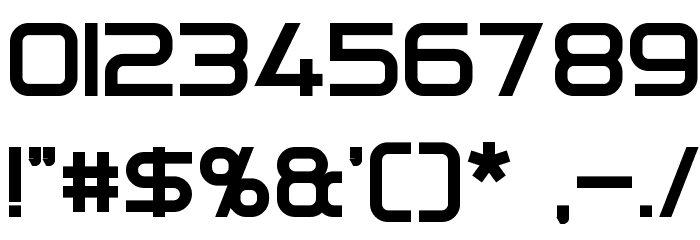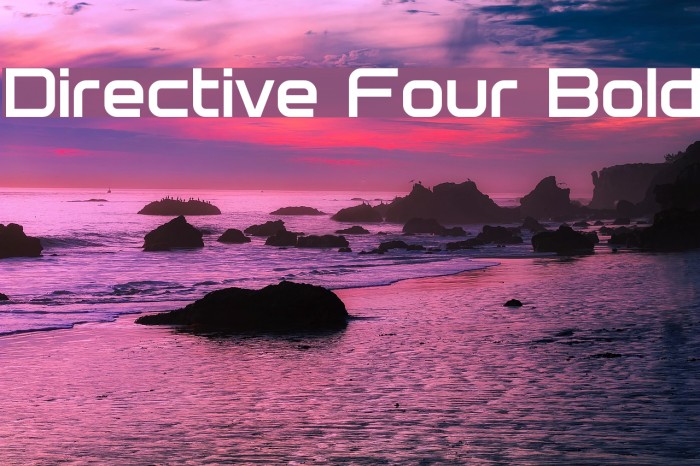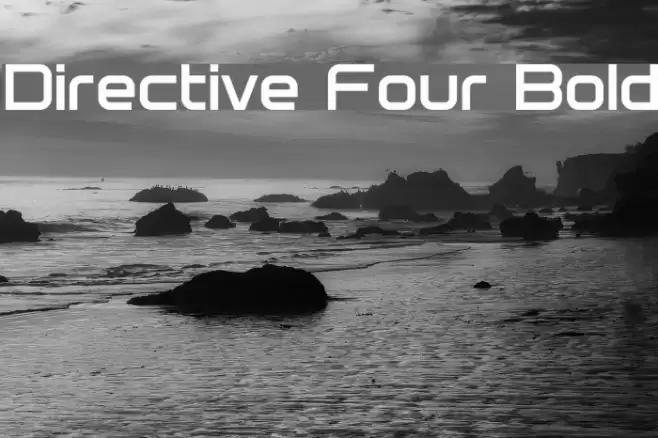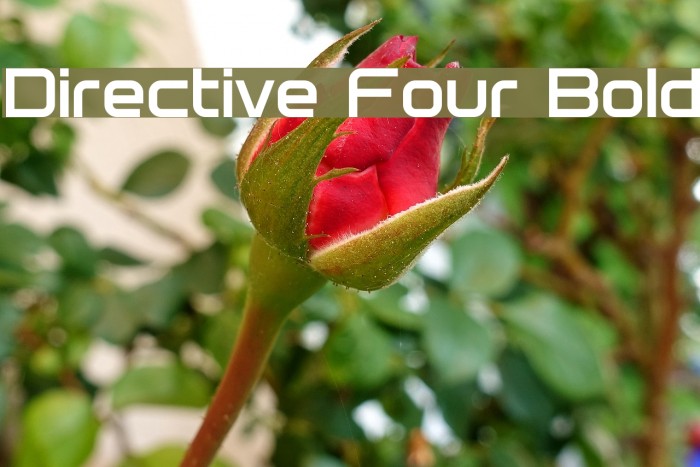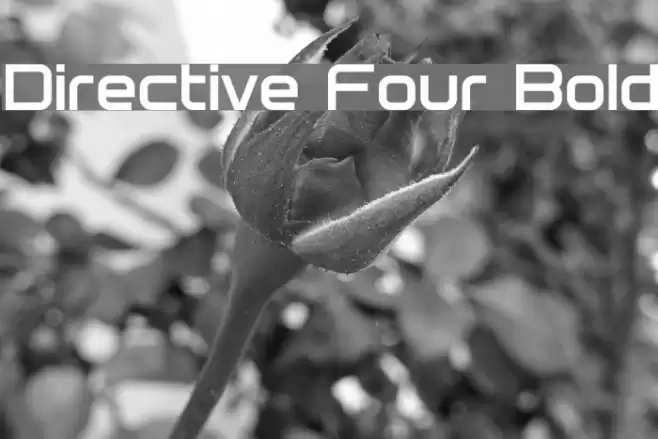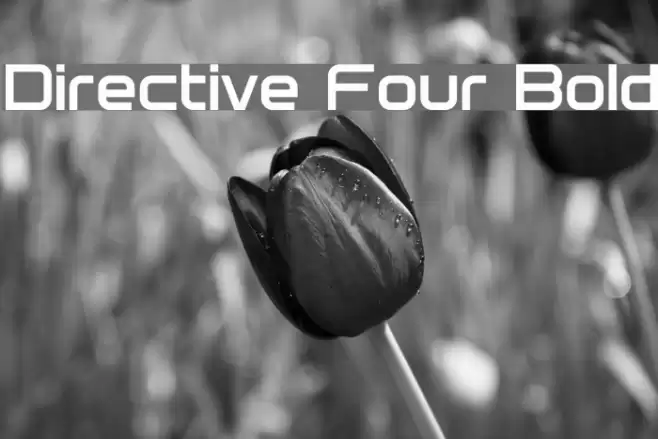
Directive Four Bold Font
Directive Four Bold Description
This font features a bold, geometric sans-serif style with clean, straight lines and a modern aesthetic. The characters are uniformly thick, providing a strong visual impact. The uppercase letters are slightly taller than the lowercase, maintaining a consistent width throughout. The numbers and special characters are designed to match the boldness of the alphabet, ensuring a cohesive look. The font's design is minimalistic yet striking, making it suitable for various contemporary applications.
| Use Case | Headlines, Logos, Digital interfaces |
| Proposed Projects | Ideal for branding, headlines, posters, and digital interfaces where a strong, modern presence is desired. |